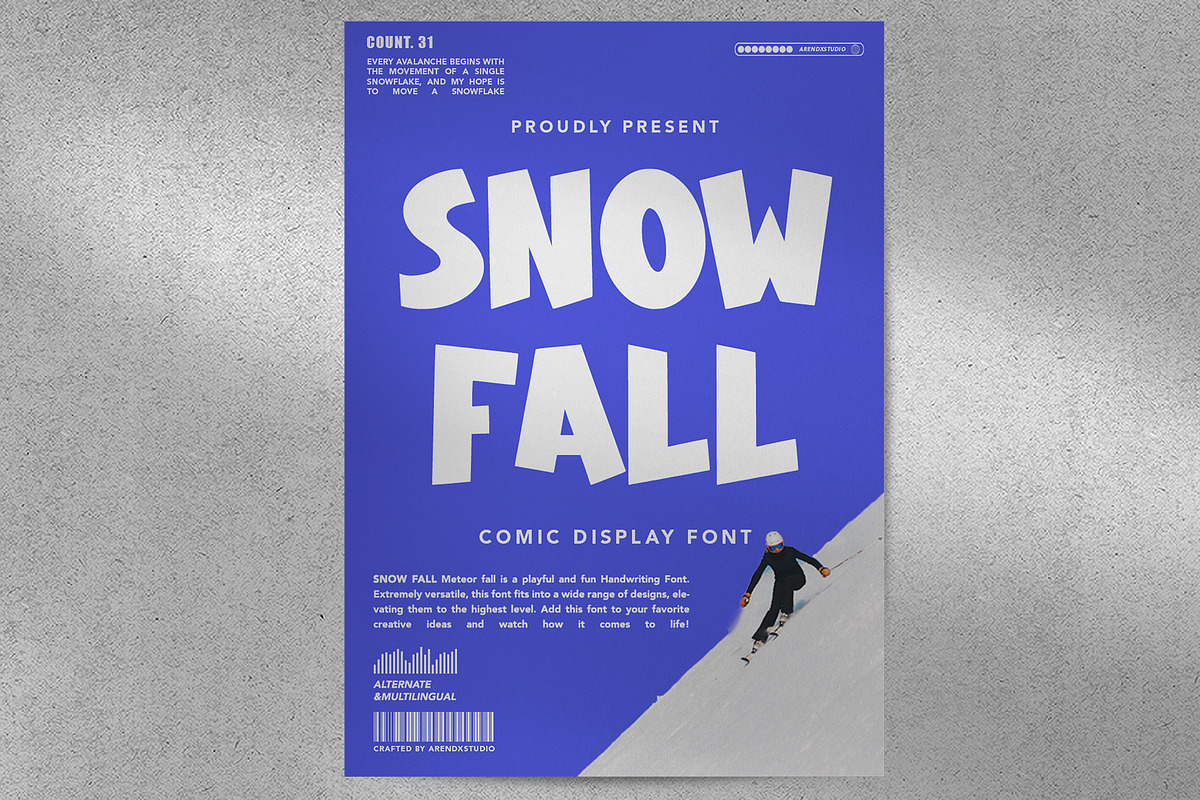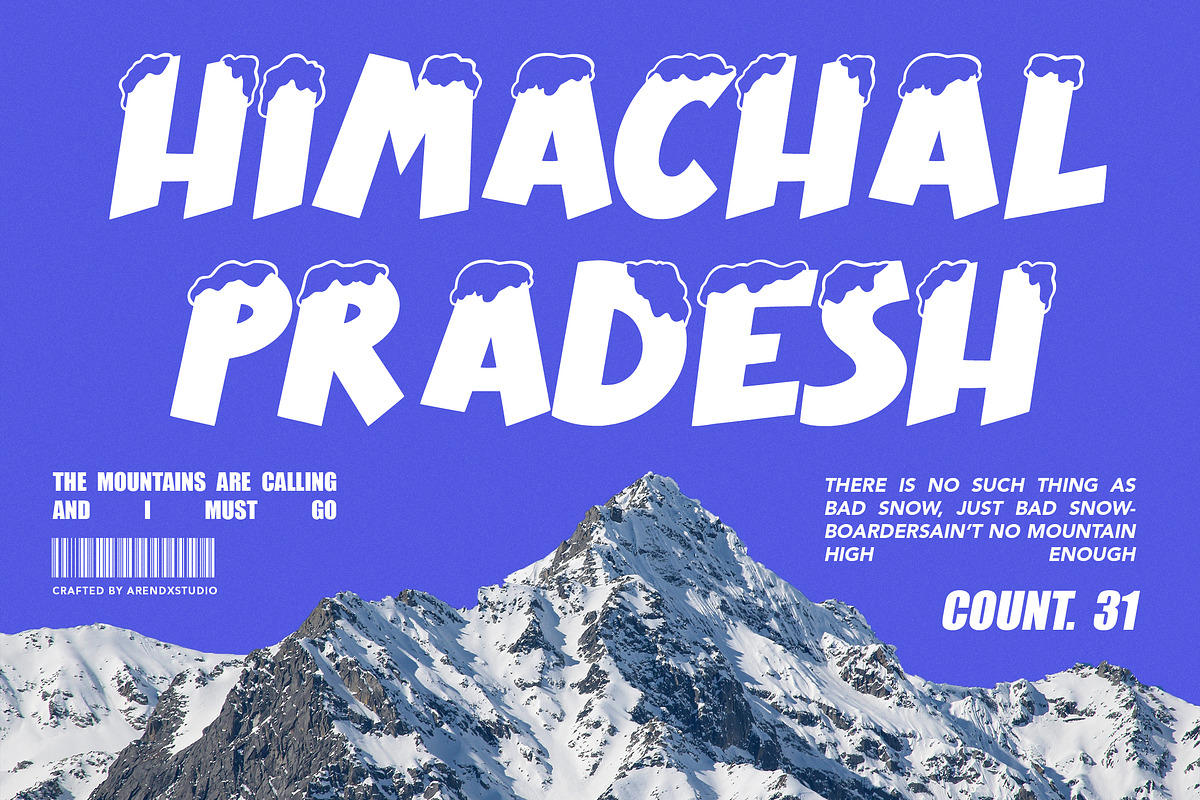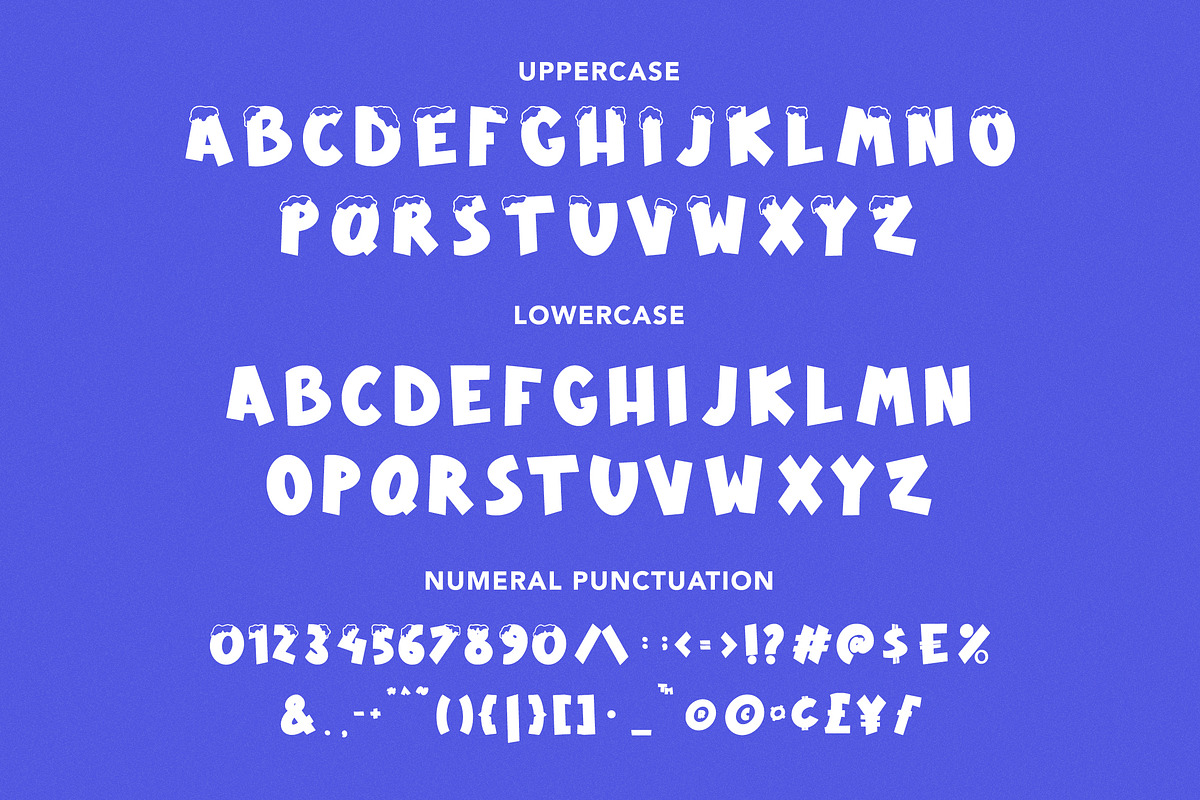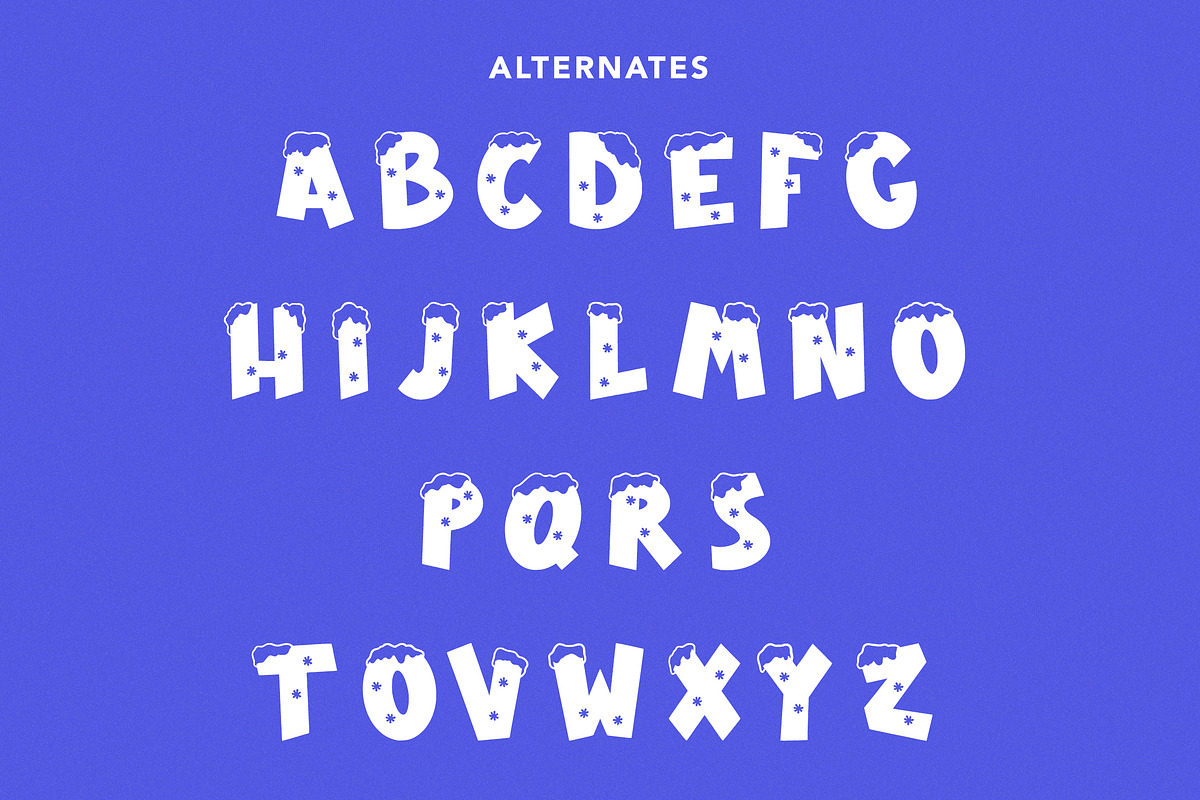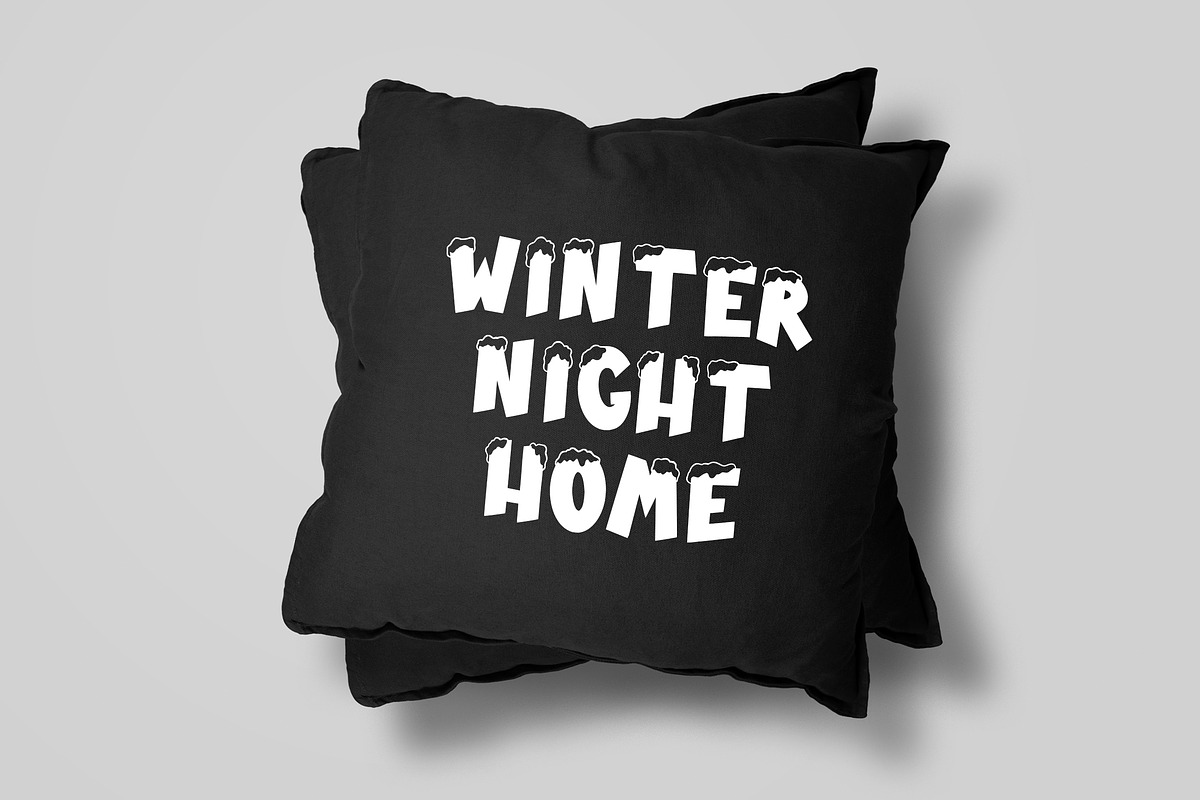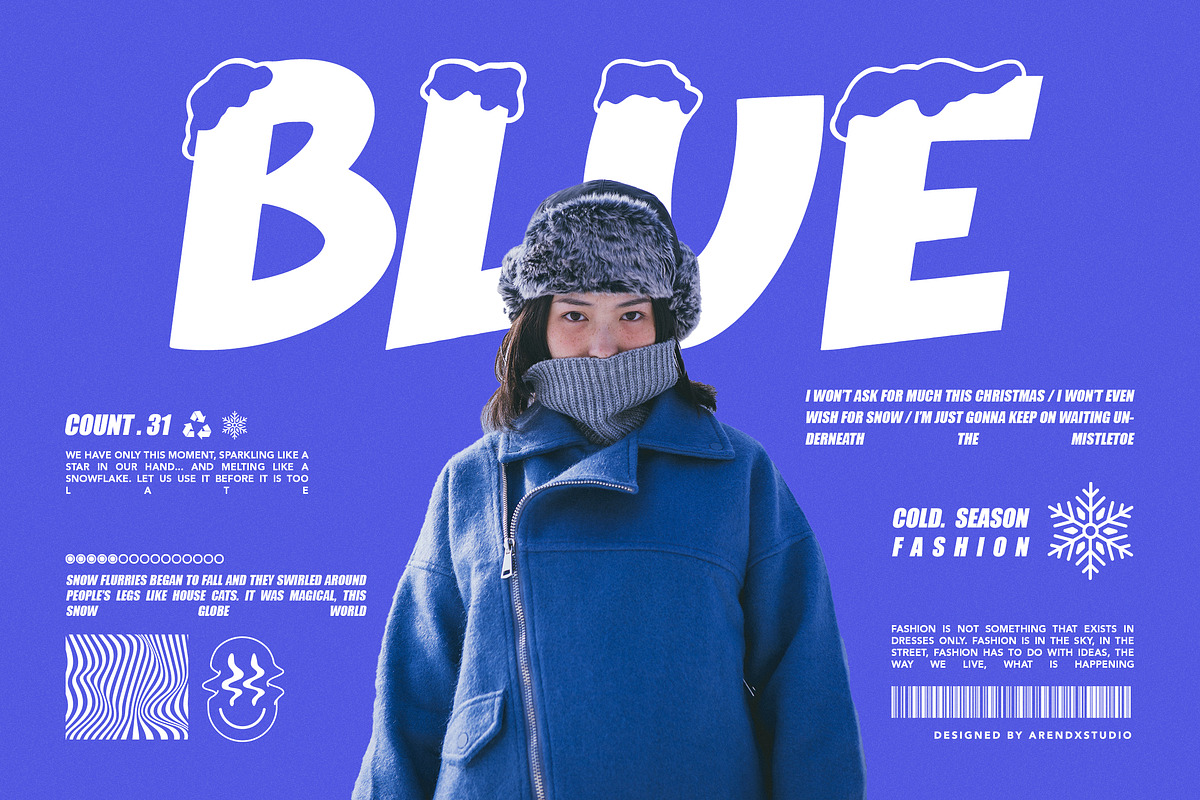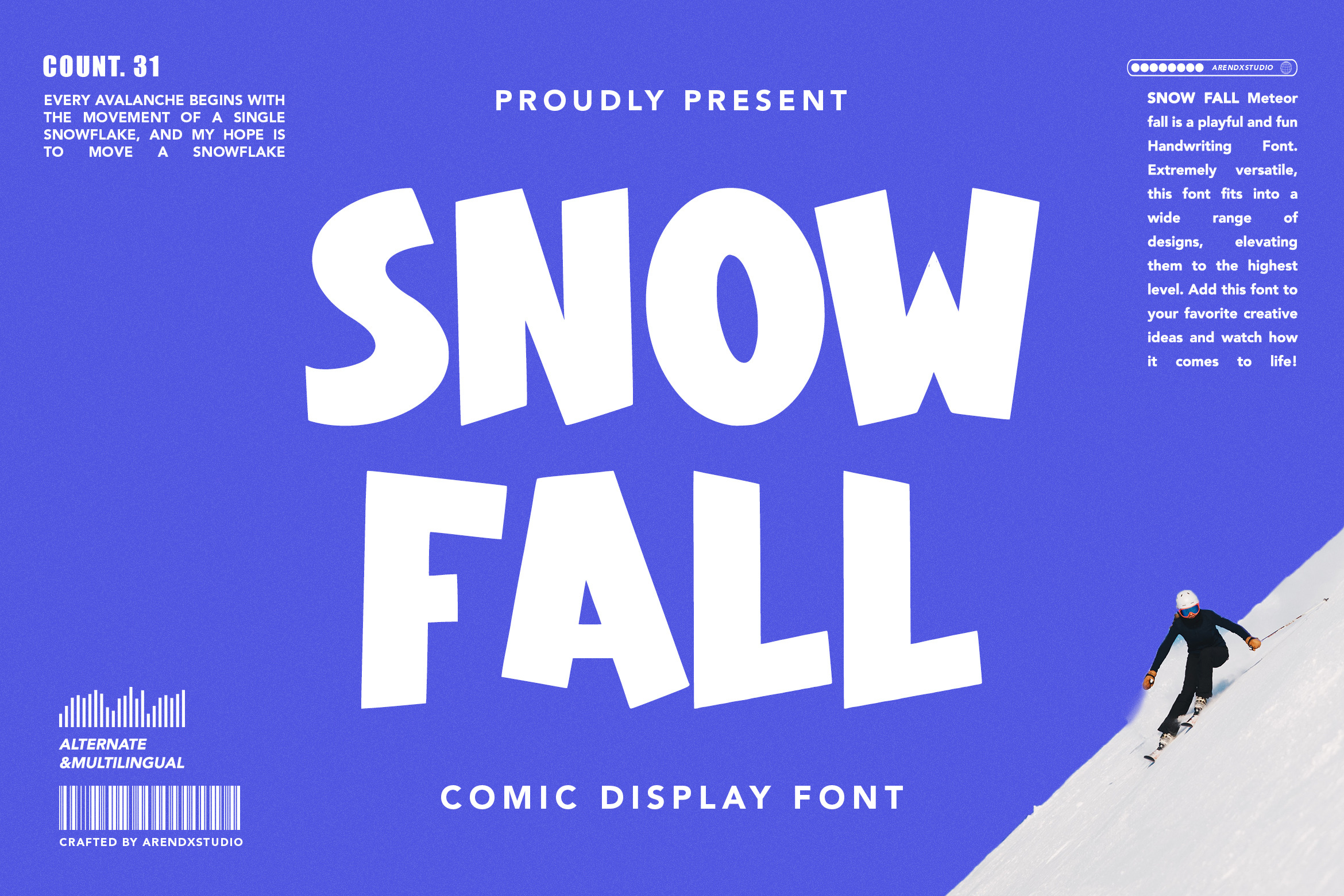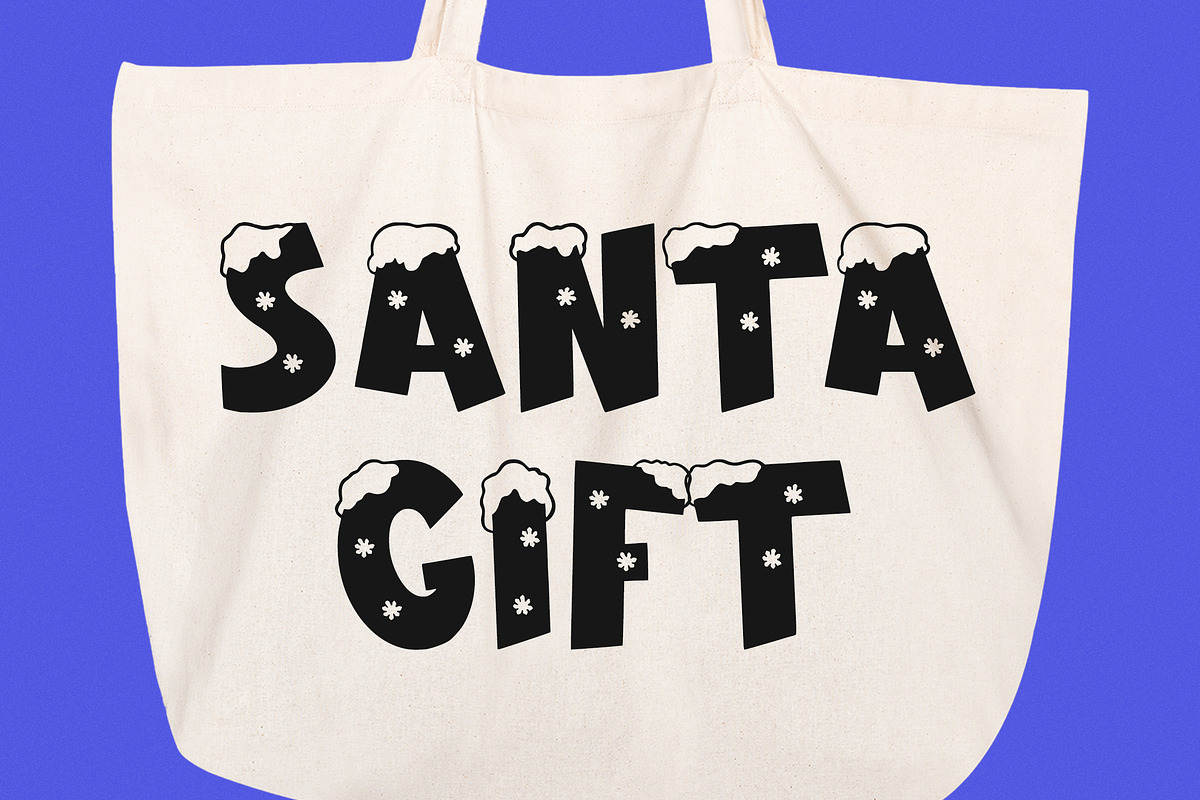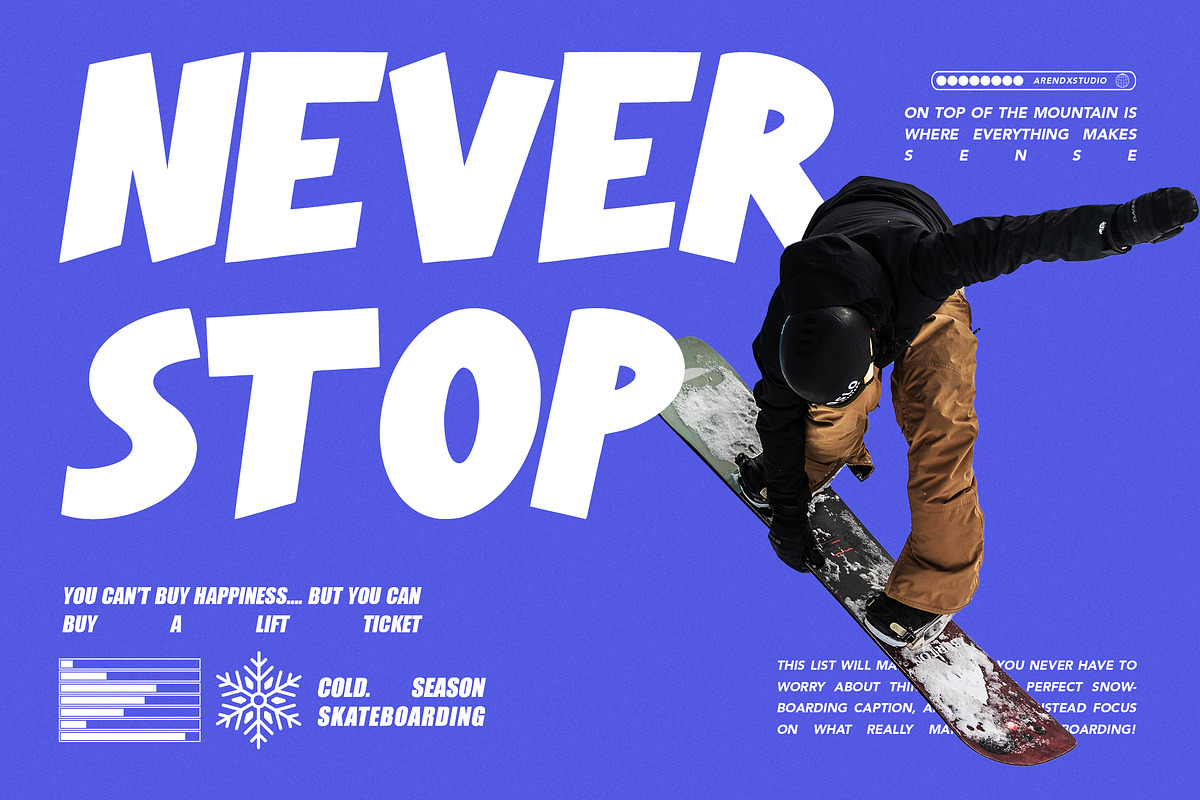
Snow Fall - Christmas Display Font
Snow Fall - Christmas Display Font is a font with distinctive handwritten characters perfect for branding projects, logos, wedding designs, media posts, advertisements, product packaging, product designs, labels, photography, watermarks, invitations, stationery, and any project who need handwritten dishes